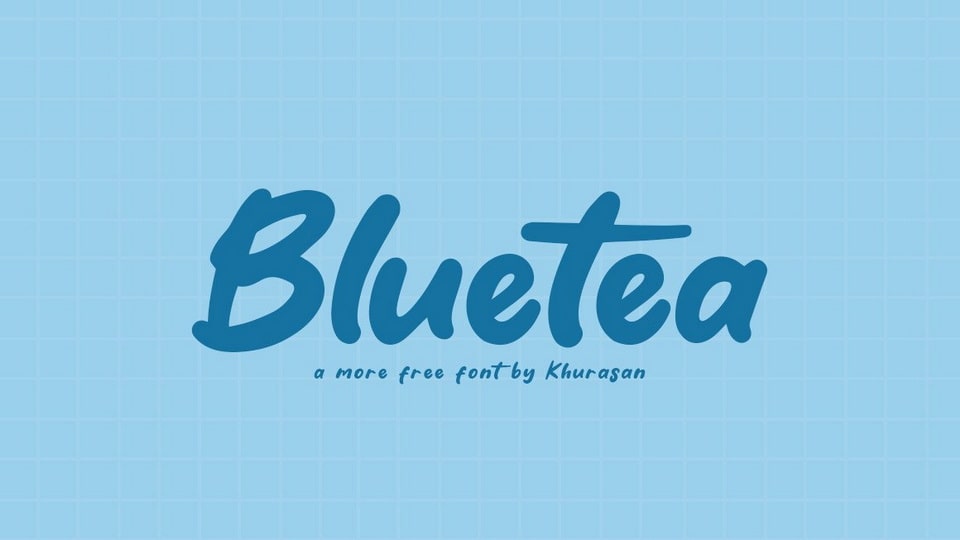
Download Bluetea font, a simple and casual handwritten typeface. With its natural look Bluetea font is perfect for posters, logos, magazines, book covers, banners, and many more.